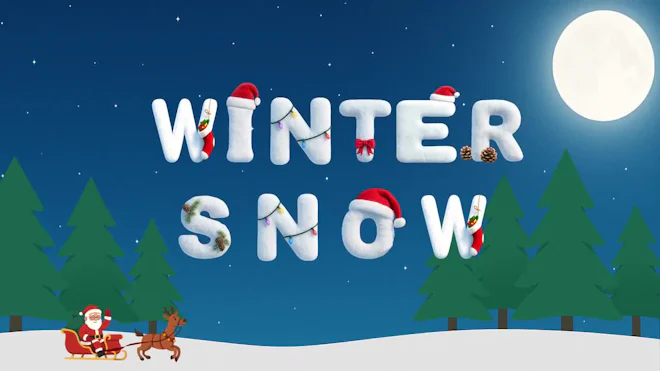
This stock motion graphics video pack includes 36 different clips of winter snow letters and numbers on a transparent alpha channel in a seamless loop.